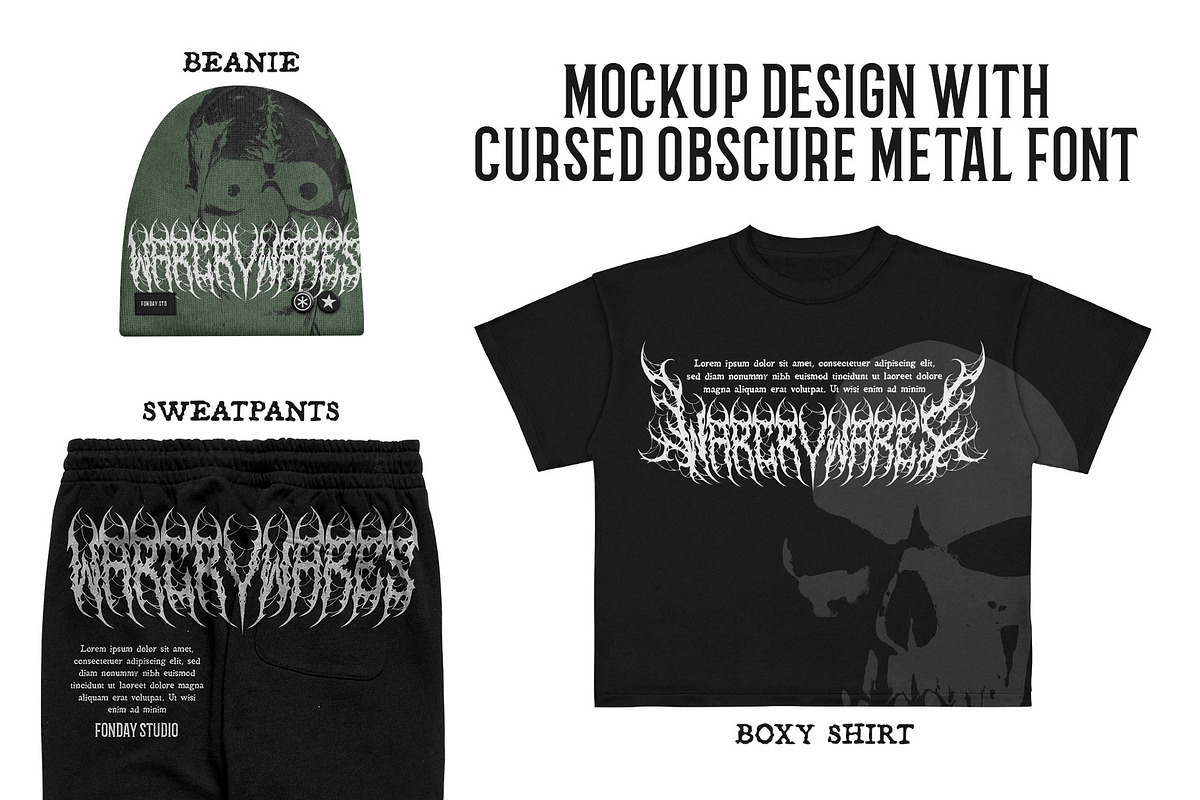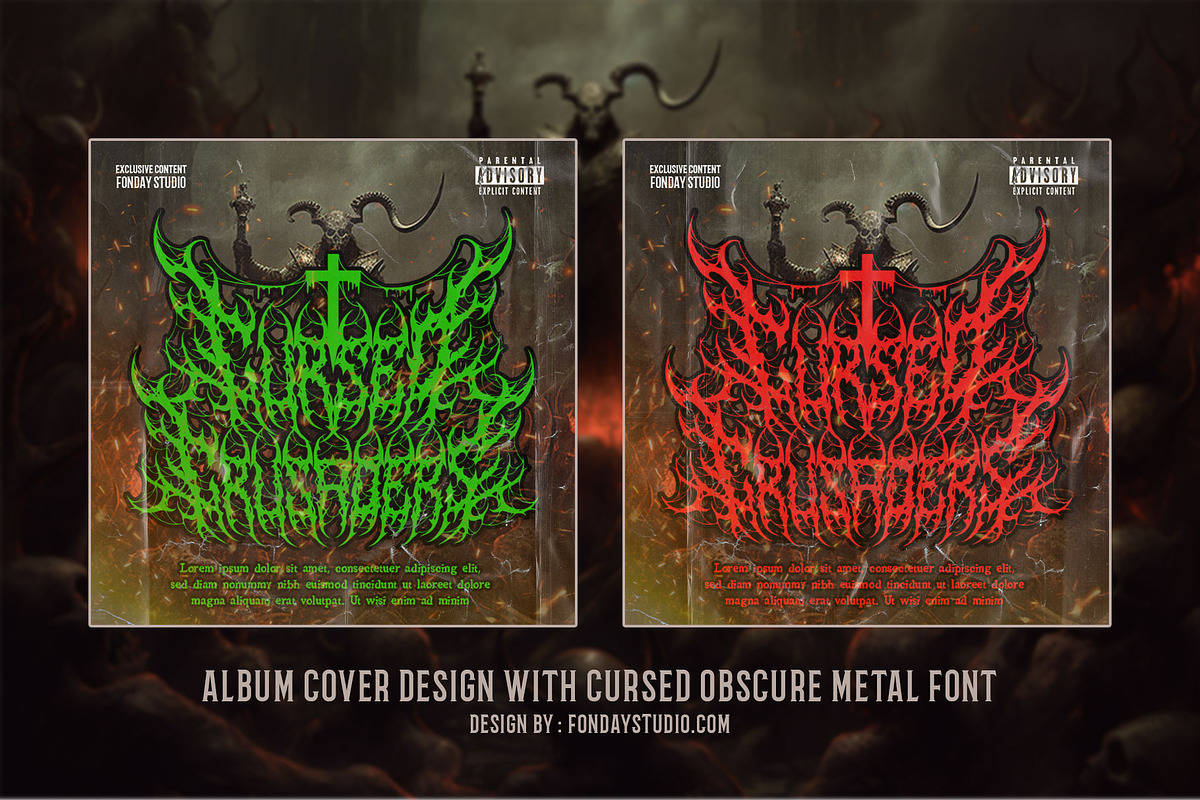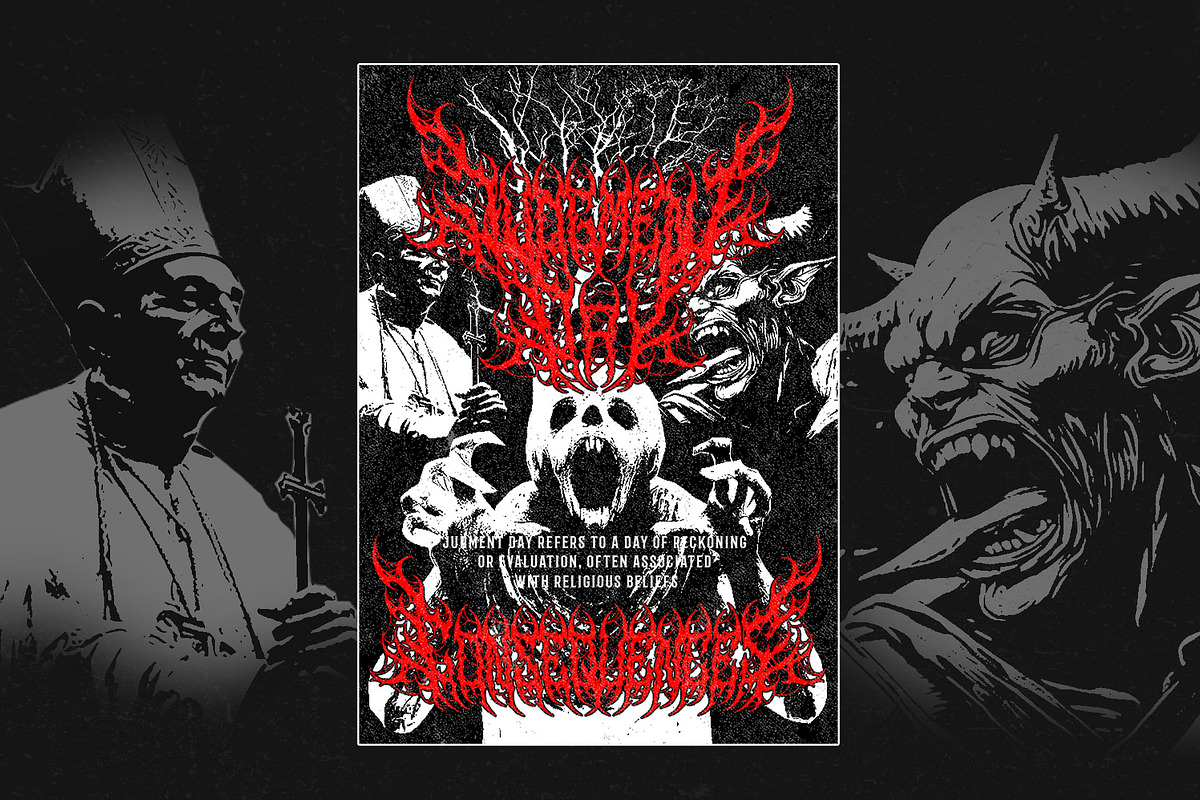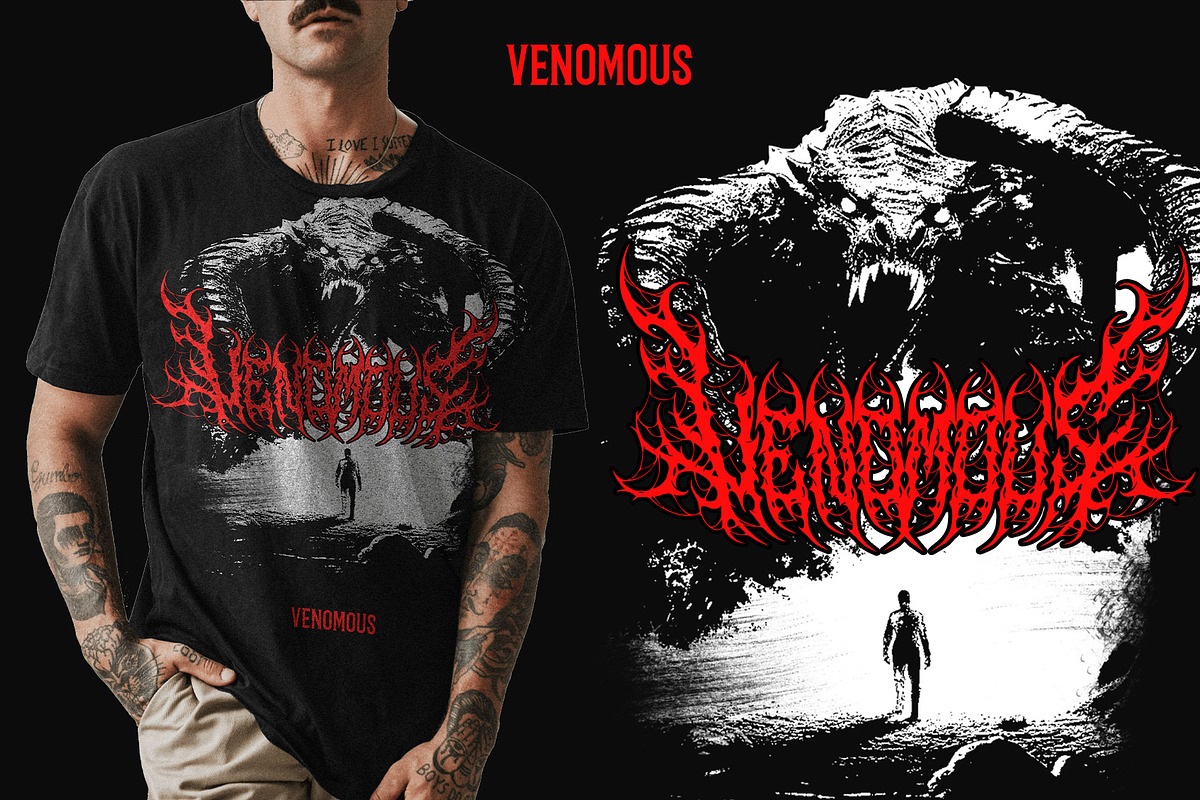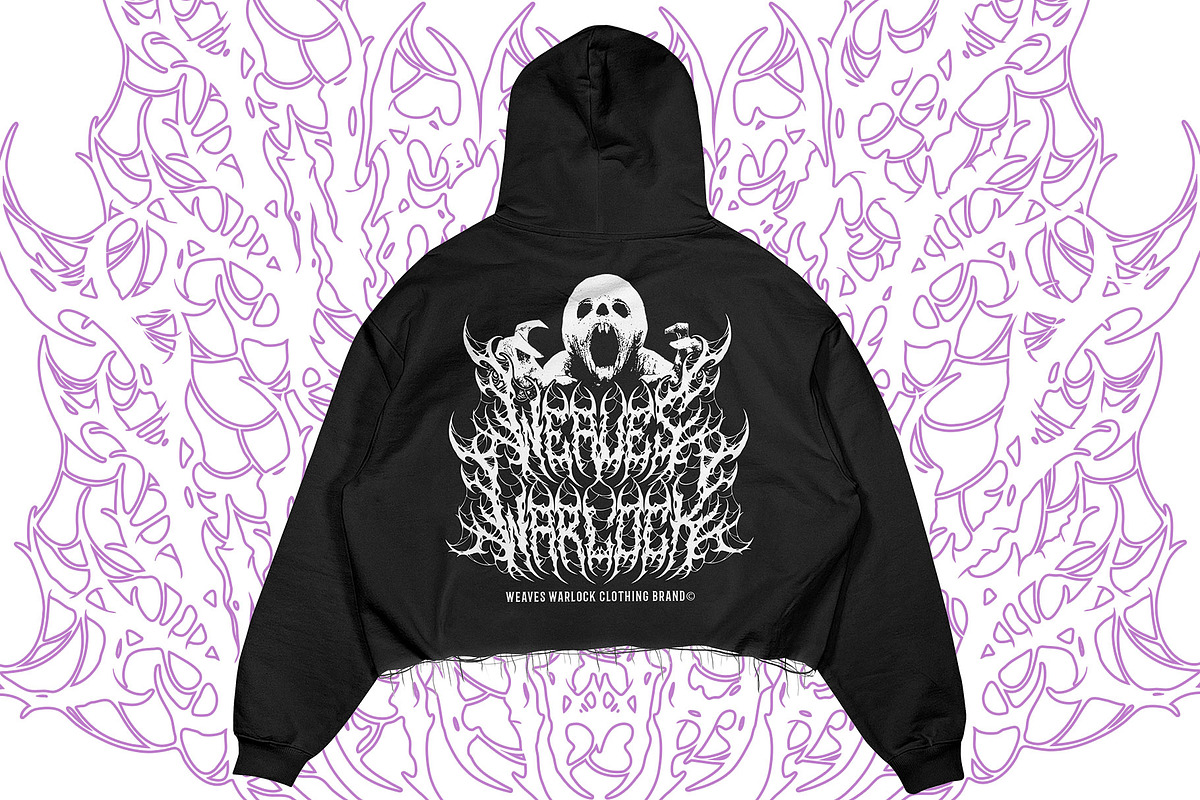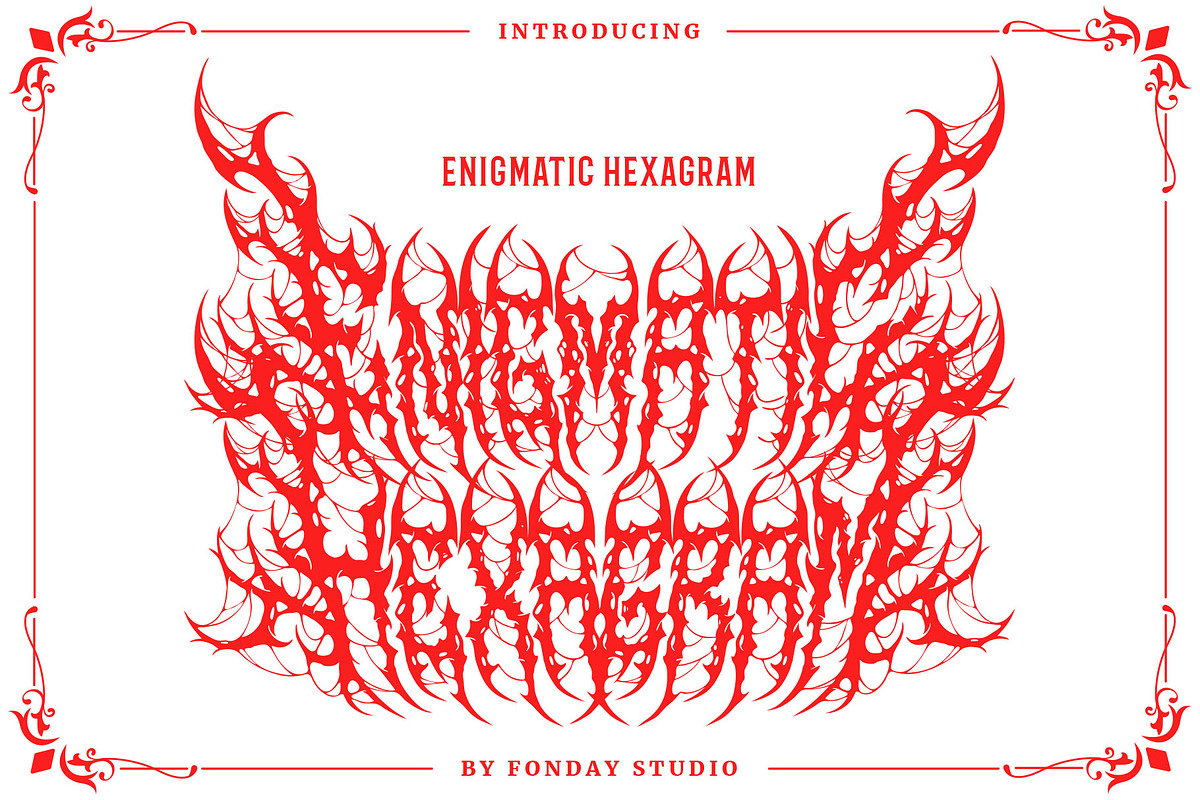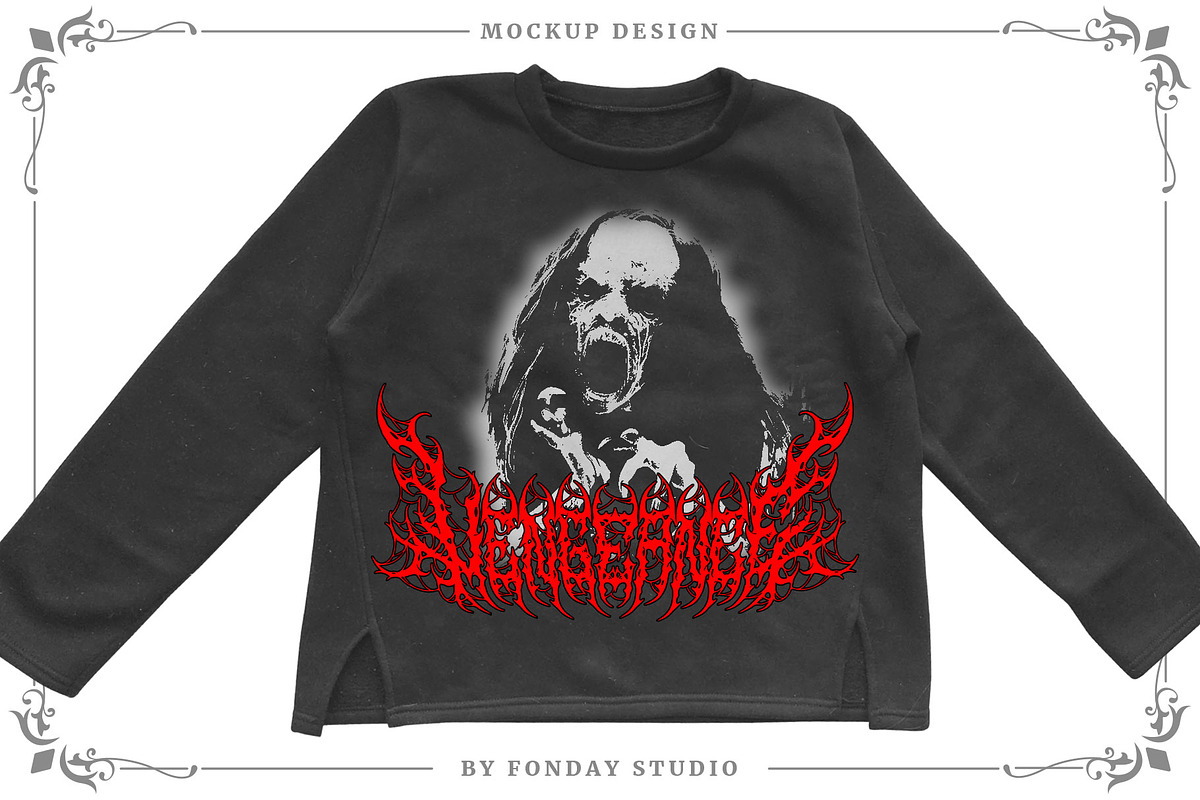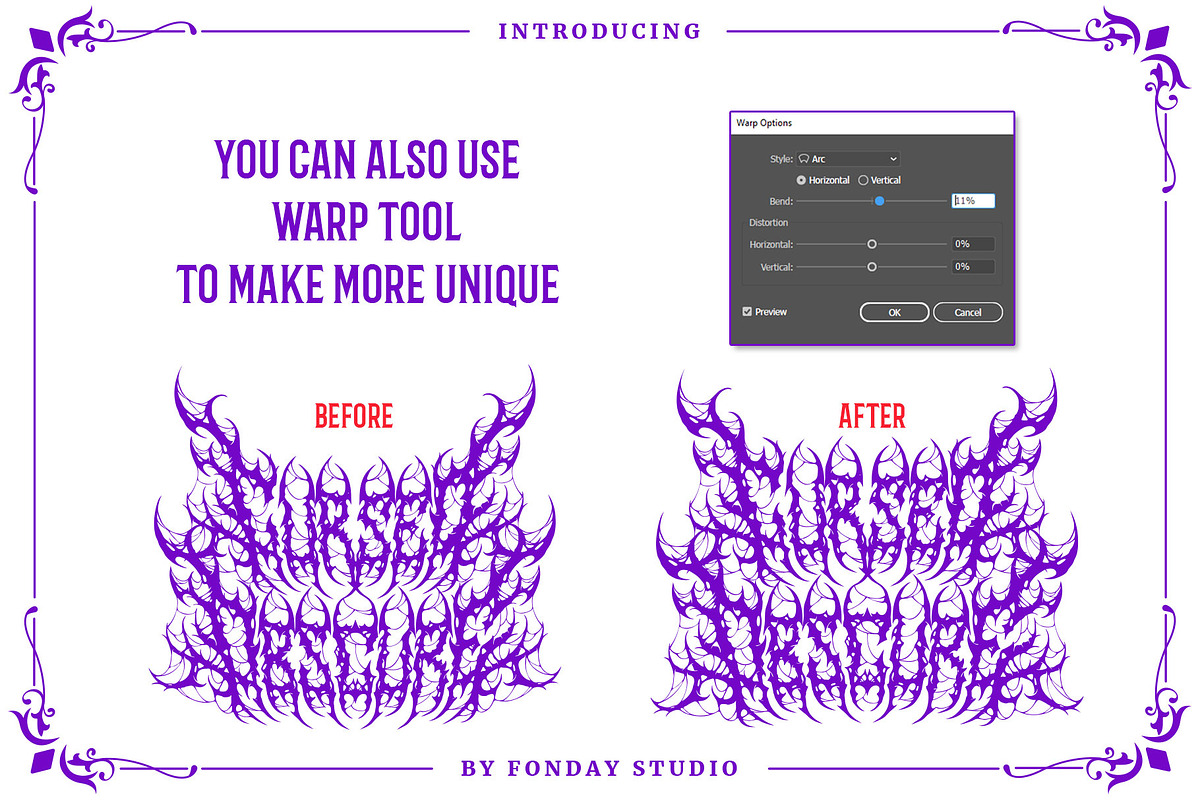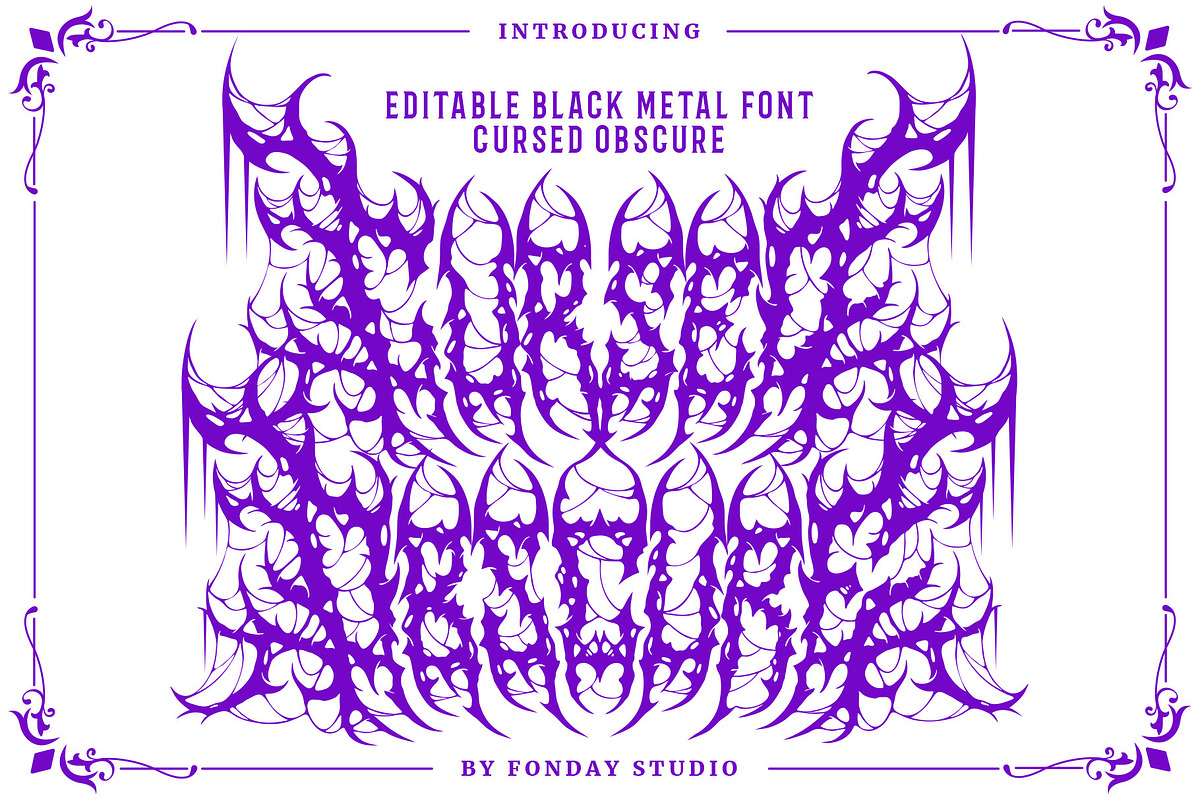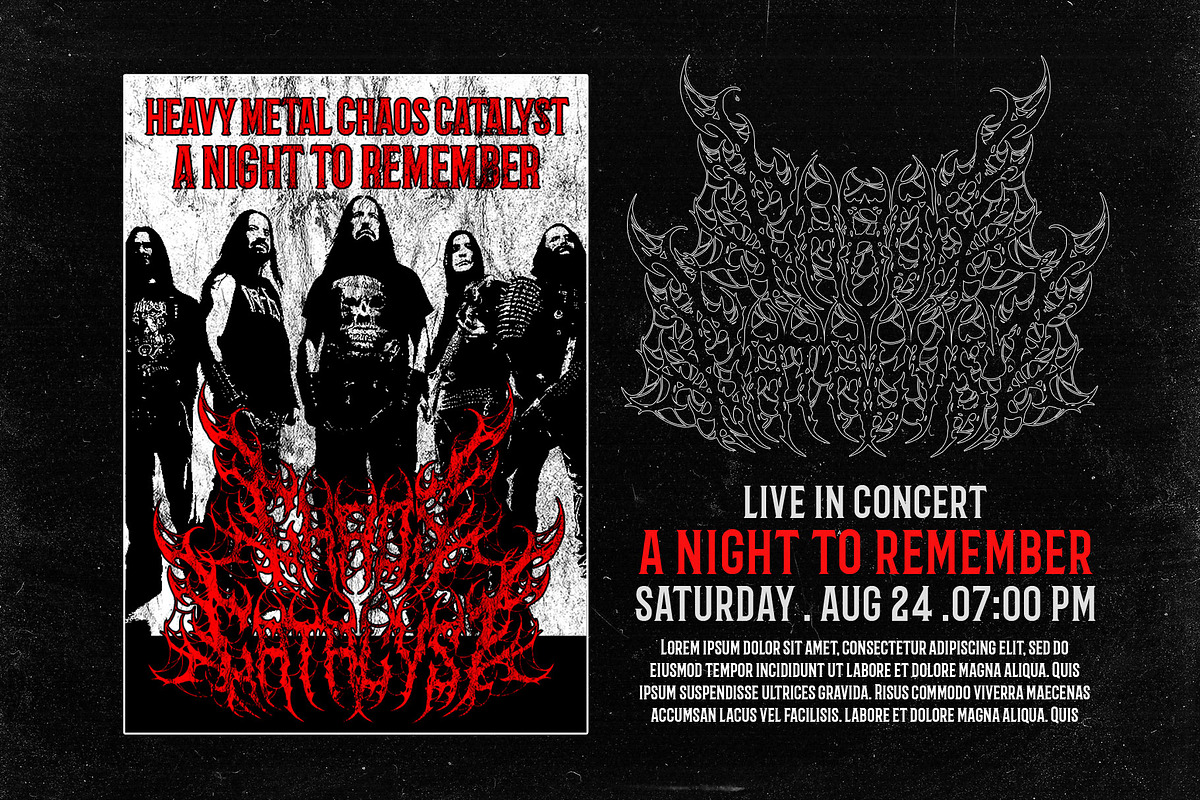
Cursed Obscure Death Metal Font
🤘 Introducing Cursed Obscure Death Metal Font: Unleash Your Dark Creativity! 🤘
Dive into the abyss with our meticulously crafted “Cursed Obscure Death Metal Font.” This is more than just a font; it’s a portal to a world of relentless metal creativity.
🔥 Unparalleled Detail: Our font boasts unrivaled quality and meticulous detailing, ensuring your designs exude the essence of true metal craftsmanship.
🤘 Limitless Alternates: With a wealth of alternate characters, your designs will never be bound by convention. Mix and match to create the perfect blend of darkness and style.
🖤 Versatile for All Metal Themes: From death metal to black metal, thrash, and beyond, this font seamlessly adapts to any metal theme design, adding a touch of darkness to your artistry.
✏️ Effortless Customization: No need for advanced design skills. Cursed Obscure Death Metal Font is user-friendly, allowing you to modify and create with ease.
🔥 Embrace the Dark Side: Stand out in the metal design realm with a font that embodies the spirit of rebellion, power, and the obscure. Cursed Obscure Death Metal Font is your key to unlocking new realms of creativity.
- All Caps Character
- Stylistic Alternate